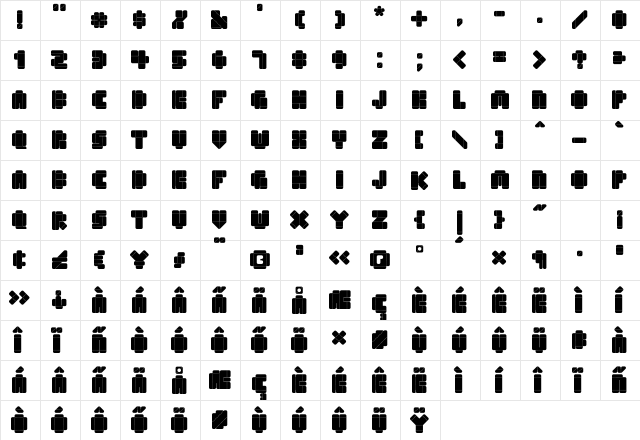
Shipflat Regular
Design Context for Shipflat Typeface
Shipflat is a composed and adaptable typeface that performs quietly and consistently across a wide range of design contexts.